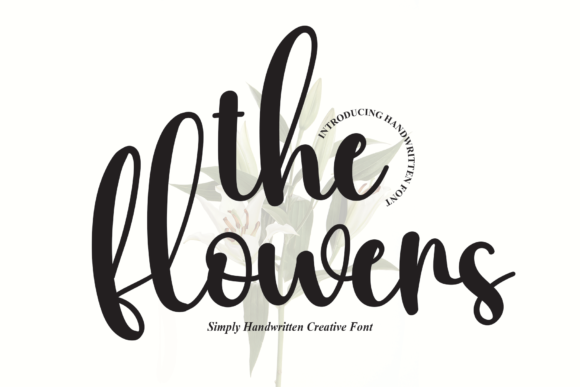
Welcome to the enthralling realm of The Flowers Font, a script font crafted with the utmost delicacy and grace. Its ornate characters, reminiscent of blossoming petals carried by a gentle breeze, will add an air of elegance and sophistication to your creative endeavors.
Immerse yourself in the allure of this script font, designed to evoke a sense of romance and charm. Its meticulously crafted curves and flourishes will transport you to a world of enchantment, making your creations bloom with beauty.
The Flowers Font is remarkably adaptable, seamlessly blending with a myriad of design aesthetics. Whether you're crafting captivating logos, enchanting invitations, or eye-catching social media posts, this font will elevate your projects to new heights of creativity.
Imagine your words taking flight, adorned with the elegance of The Flowers Font. Its delicate strokes will bestow a touch of allure upon your designs, making them irresistible to the eyes of your audience.
Experience the transformative power of The Flowers Font today. Let its enchanting aura captivate your imagination and witness your creations blossom into masterpieces.